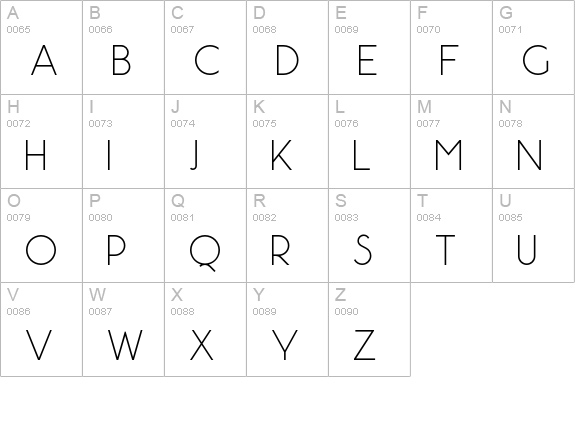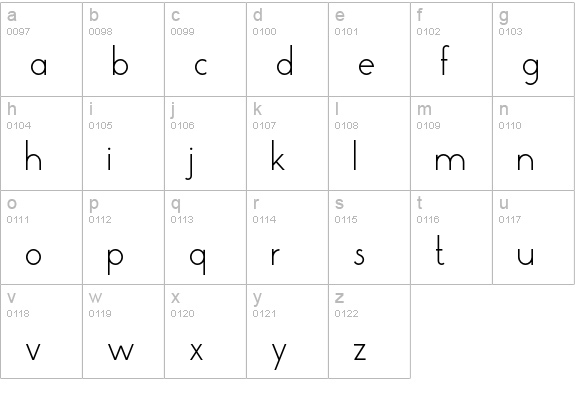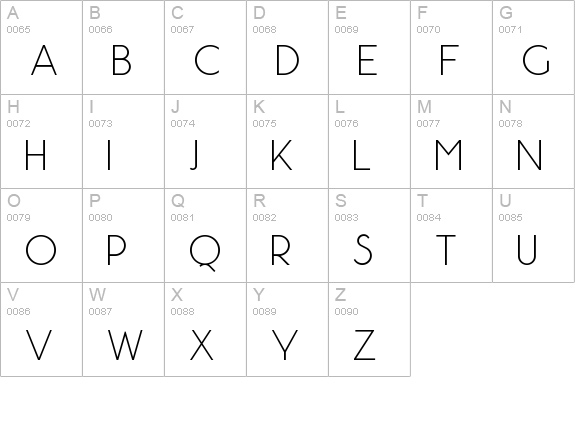
Pistara Font Details
Introducing Pistara, a stunning and versatile font that is sure to captivate and elevate any design project. This font embodies elegance and sophistication, making it perfect for a wide range of applications such as branding, logos, invitations, and more. With its clean lines and contemporary style, Pistara exudes a sense of modernity while maintaining a timeless appeal. Its carefully crafted letterforms are effortlessly legible, making it a joy to read in any size or format. But what truly sets Pistara apart is its incredible accessibility. This font is freely available to download at FontsMarket.com, allowing designers and creatives from all walks of life to easily incorporate this beautiful typeface into their work. Now, you can add a touch of elegance and professionalism to your designs without breaking the bank. Whether you're a seasoned designer or just starting out, Pistara offers endless possibilities. Its versatility allows it to seamlessly adapt to any project, from sleek corporate presentations to artistic and whimsical designs. With its extensive character set and multiple weights, Pistara gives you the creative freedom to truly make your design visions come to life. So why wait? Download Pistara now from FontsMarket.com and start creating stunning visuals that are guaranteed to leave a lasting impression. Elevate your designs with this timeless font and watch as your projects come to life with a touch of elegance and sophistication.